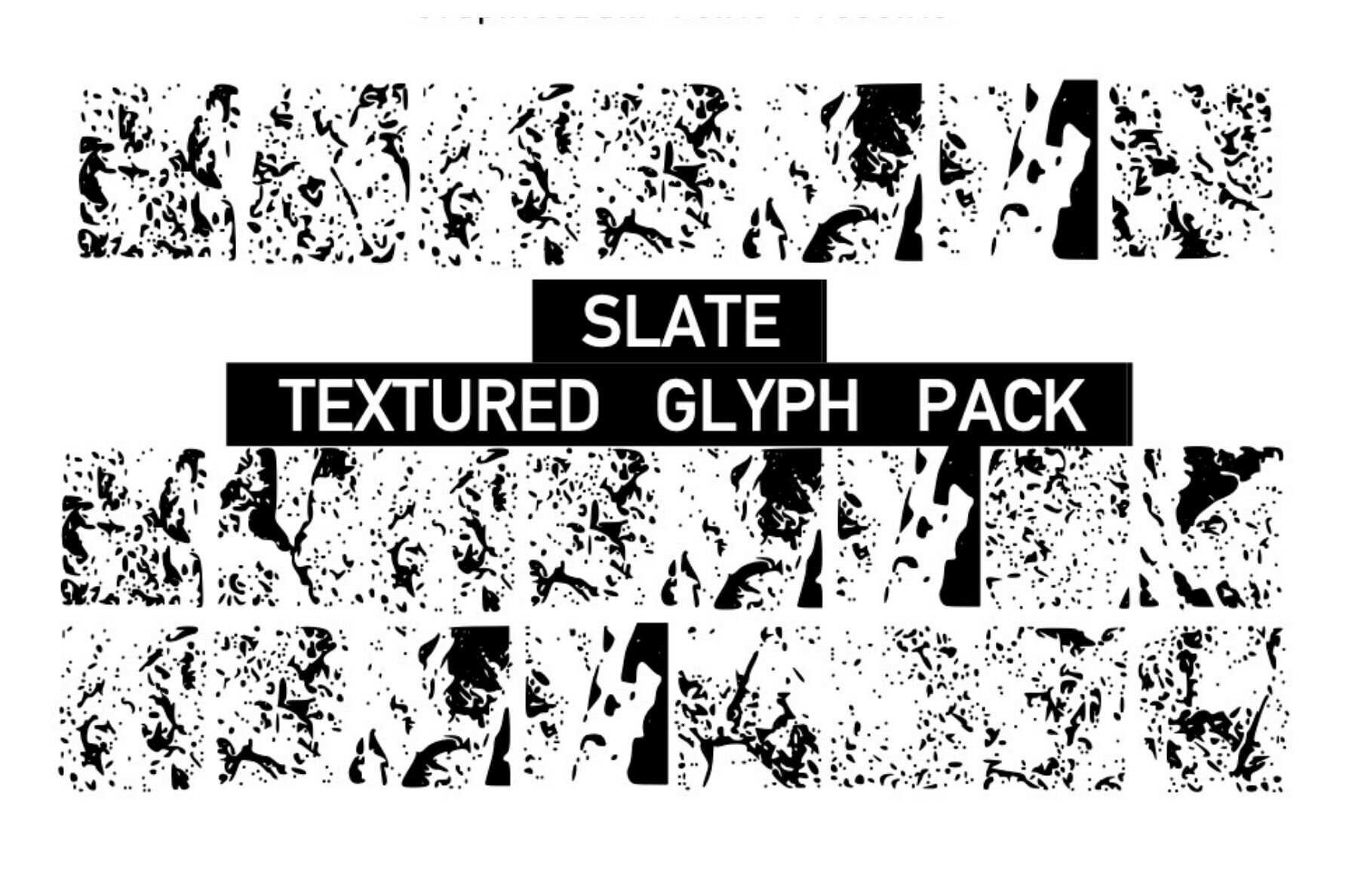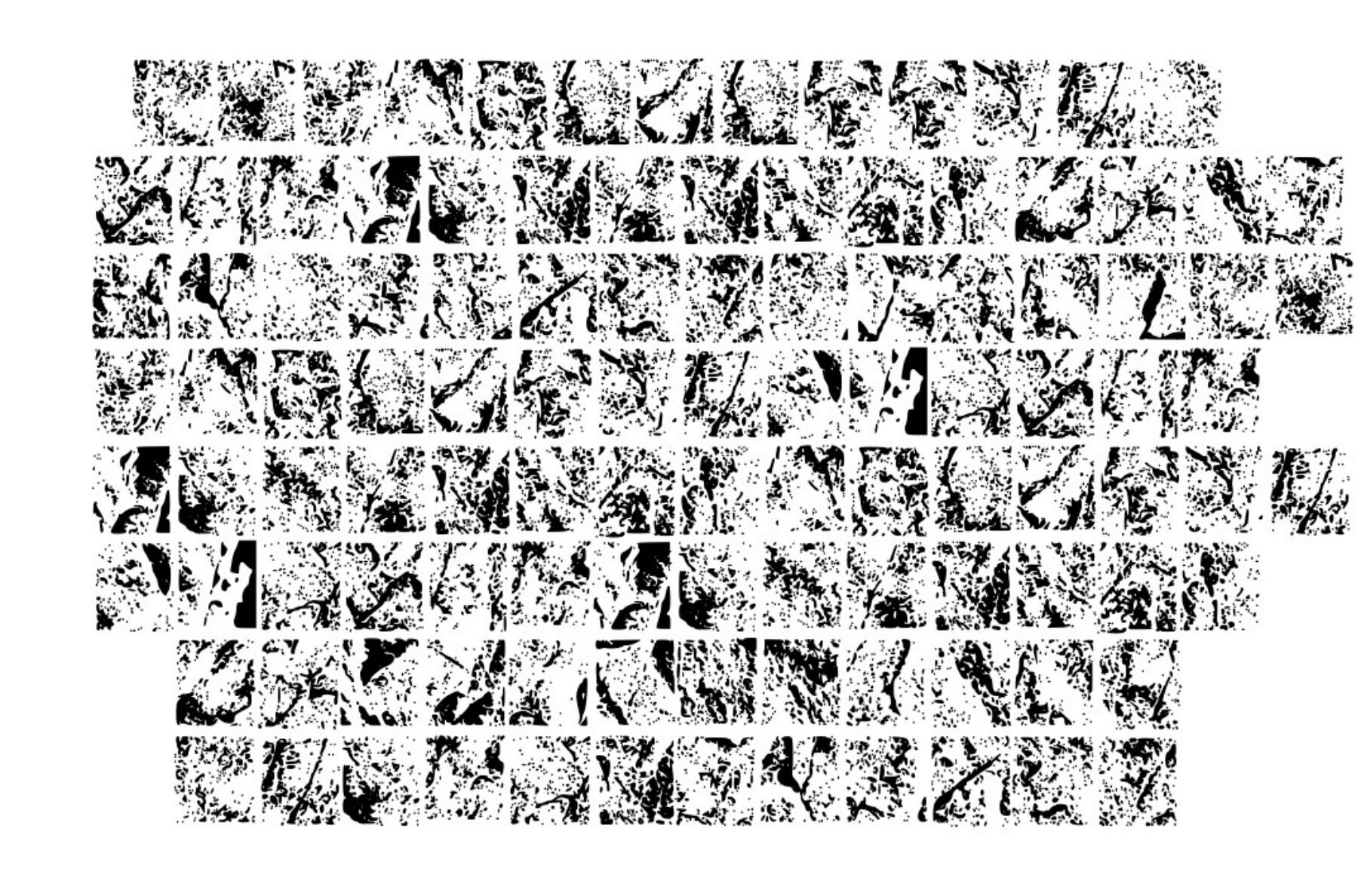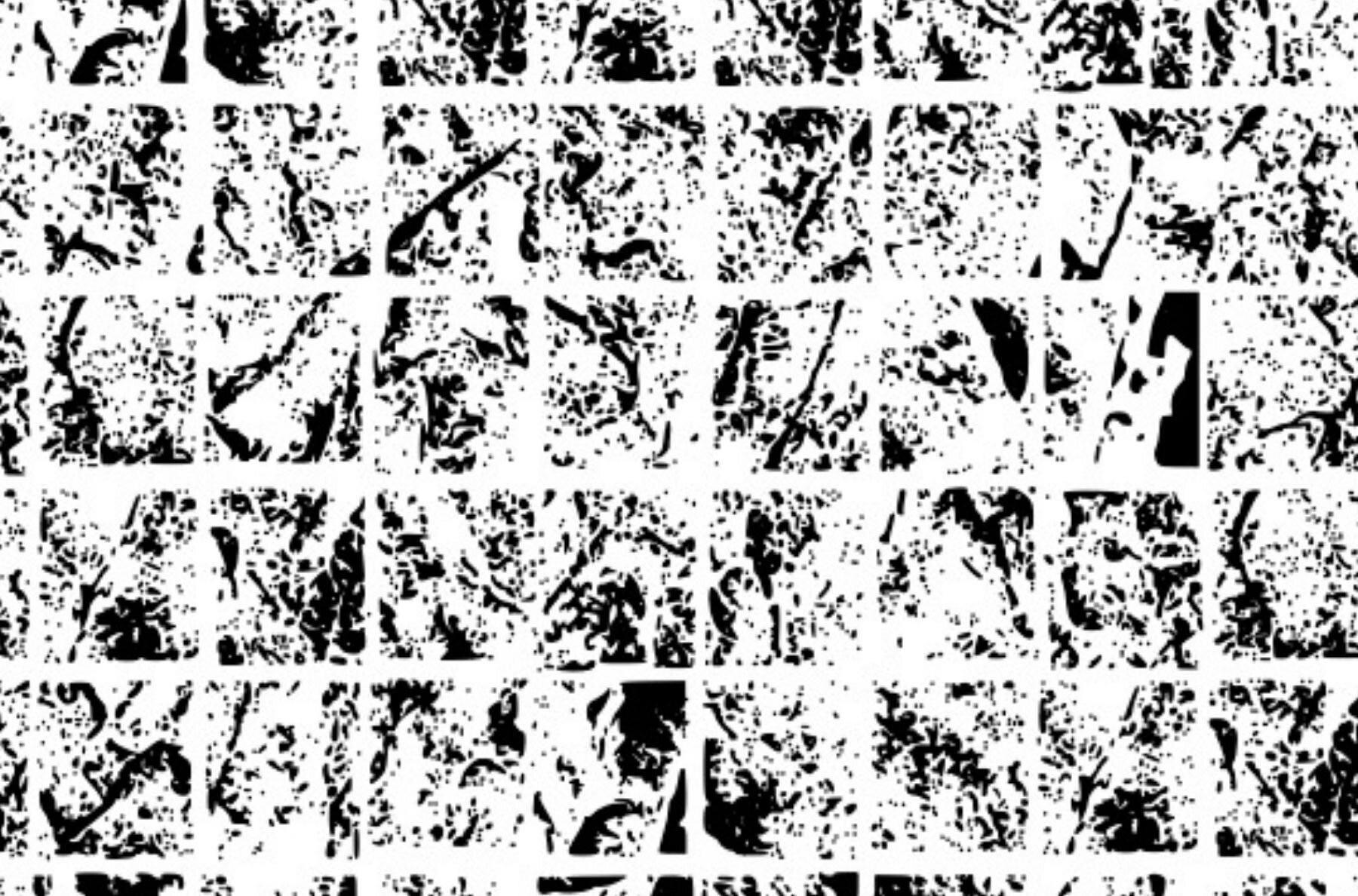
Texture Slate Font
Texture Slate
Discover the captivating essence of nature with Texture Slate, a robust collection of slate-textured glyphs. This extensive pack captures the authentic grain and character of slate, making it an ideal addition to any natural design or craft project. Whether you're working on digital artwork, branding, or DIY crafts, these glyphs provide a tactile feel and distinctive look that brings designs to life.Texture Slate by Graphics Bam